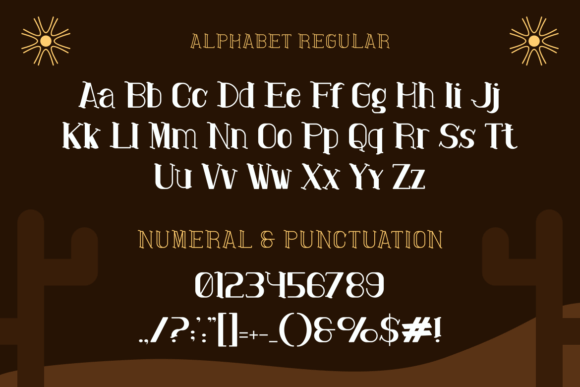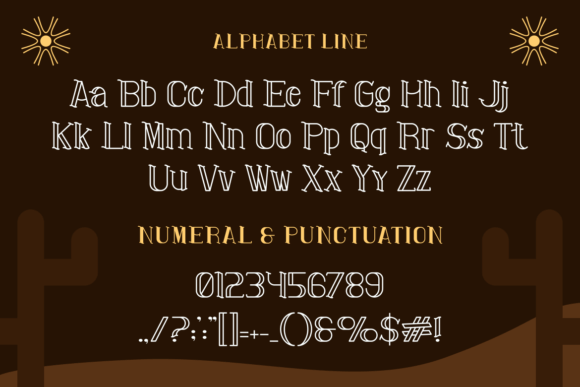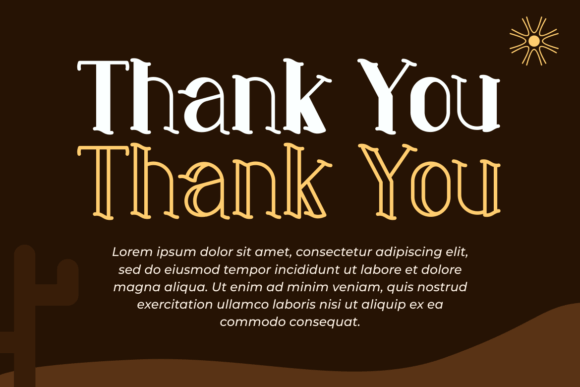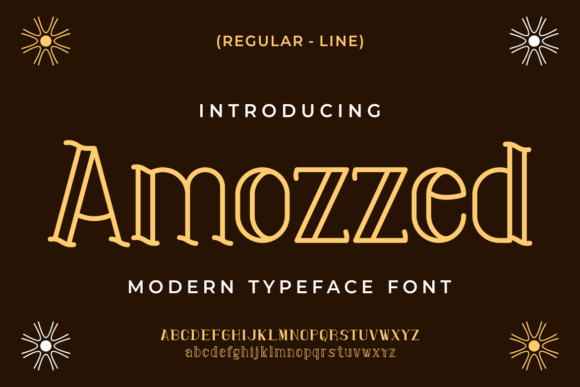
Introducing Amozzed Font: The Modern Display Font You Need
Are you tired of using the same old fonts for your branding projects? Look no further! We’re excited to introduce Amozzed Font, a bold and authentic display font that’s perfect for making a statement. In this article, we’ll dive into the features and benefits of Amozzed Font, and explore how it can elevate your designs to the next level.
What is Amozzed Font?
Amozzed Font is a modern display font designed to help you create stunning visuals for your branding projects. Its bold and authentic style makes it perfect for a wide range of applications, from logos and t-shirt printing to esports and more. With its unique character set and sleek design, Amozzed Font is sure to grab attention and leave a lasting impression.
Key Features of Amozzed Font
- Bold and Authentic Style: Amozzed Font boasts a bold and authentic style that’s perfect for making a statement.
- Wide Range of Contexts: This font is suitable for a wide range of contexts, including logos, t-shirt printing, esports, and more.
- Unique Character Set: Amozzed Font features a unique character set that will help your designs stand out from the crowd.
- Sleek Design: The font’s sleek design ensures that it looks great in both digital and print formats.
Benefits of Using Amozzed Font
So, why should you choose Amozzed Font for your next project? Here are just a few benefits of using this amazing font:
- Instant Recognition: With its bold and authentic style, Amozzed Font is sure to grab attention and create instant recognition for your brand.
- Versatility: This font is suitable for a wide range of applications, making it a versatile addition to your font library.
- Time-Saving: With Amozzed Font, you can create stunning visuals in no time, saving you hours of design time.
- Unique Look: Amozzed Font’s unique character set ensures that your designs will stand out from the crowd and look unlike anything else.
Who Can Benefit from Amozzed Font?
Amozzed Font is perfect for a variety of designers and crafters, including:
- Graphic Designers: If you’re a graphic designer looking for a bold and authentic font to add to your library, Amozzed Font is a great choice.
- T-Shirt Designers: With its bold style and unique character set, Amozzed Font is perfect for t-shirt designers who want to create eye-catching designs.
- Esports Enthusiasts: If you’re involved in the esports industry, Amozzed Font is a great choice for creating bold and attention-grabbing visuals.
- Crafters: Whether you’re a crafter who loves to make DIY projects or a hobbyist who enjoys creating art, Amozzed Font is a great addition to your font library.
- Experiment with Different Sizes: Amozzed Font looks great in a variety of sizes, so don’t be afraid to experiment and find the perfect size for your project.
- Pair it with Other Fonts: Amozzed Font pairs well with a variety of other fonts, so try combining it with other fonts to create a unique look.
- Use it for Headlines: With its bold style, Amozzed Font is perfect for headlines and titles.